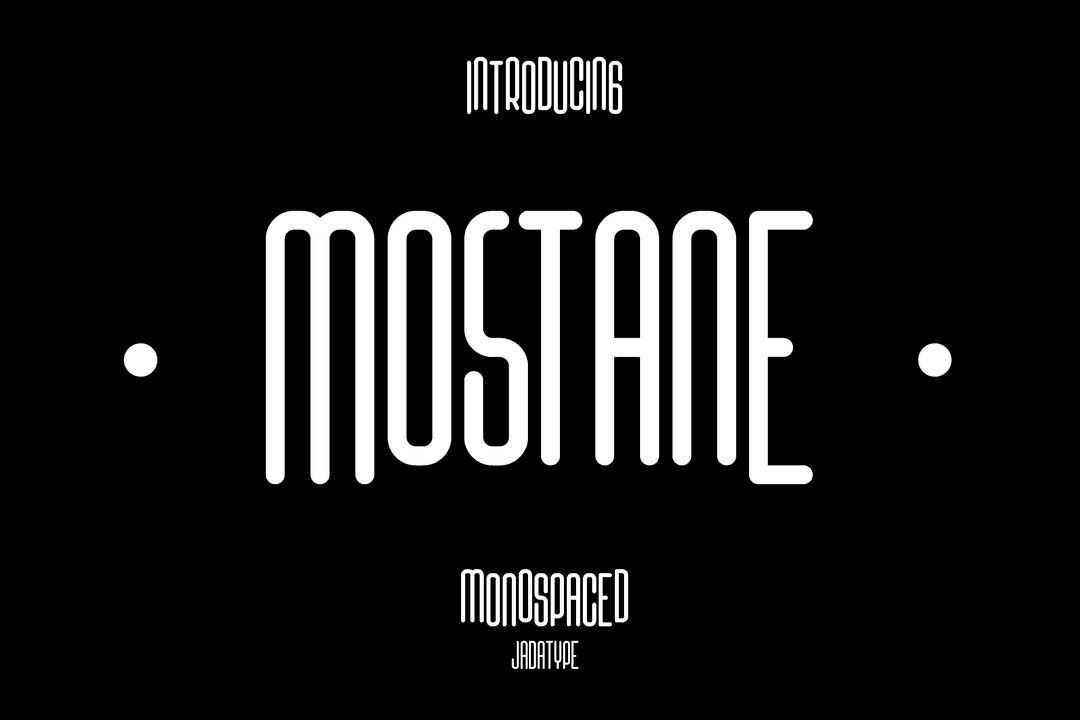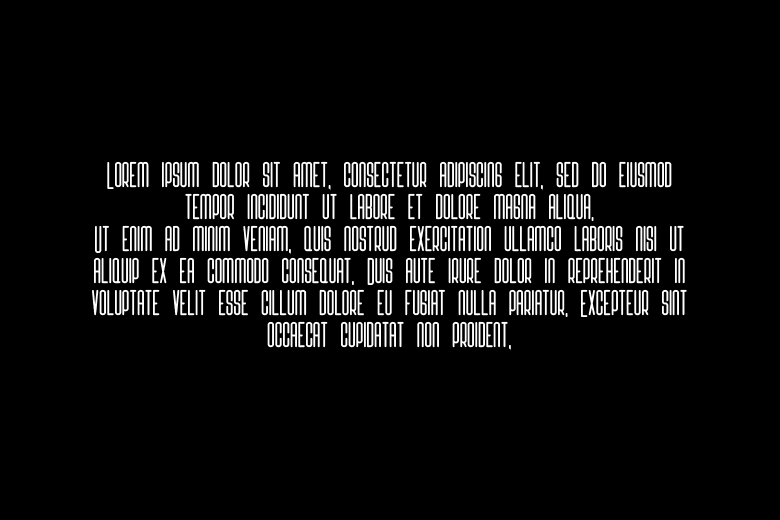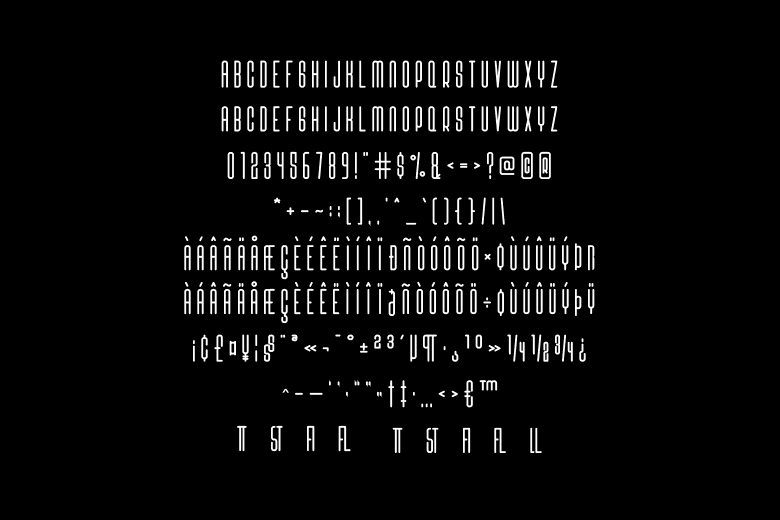
Mostane can be described as a monospaced font designed specifically to be used for branding and social media applications, ideal for branding purposes as well as multilingualism with its typical English letters as well as accents to allow multilingualism.